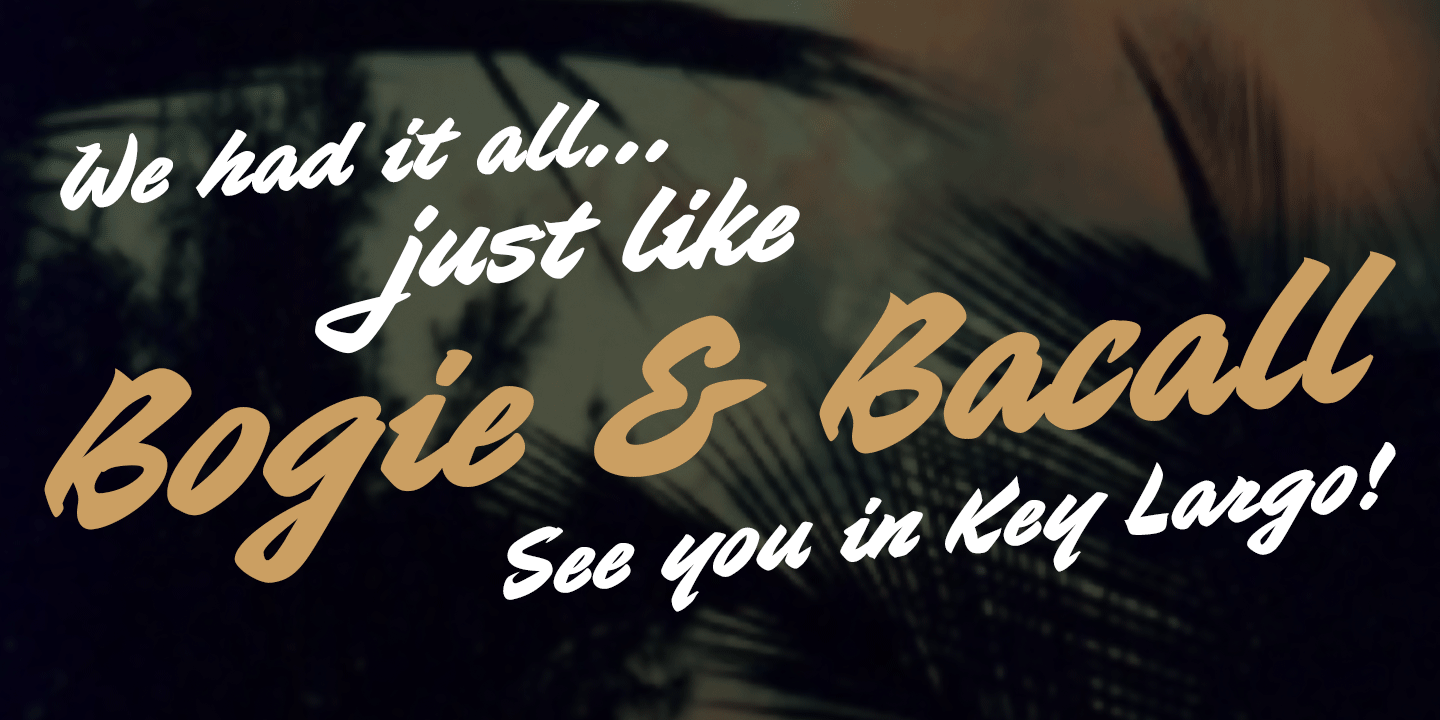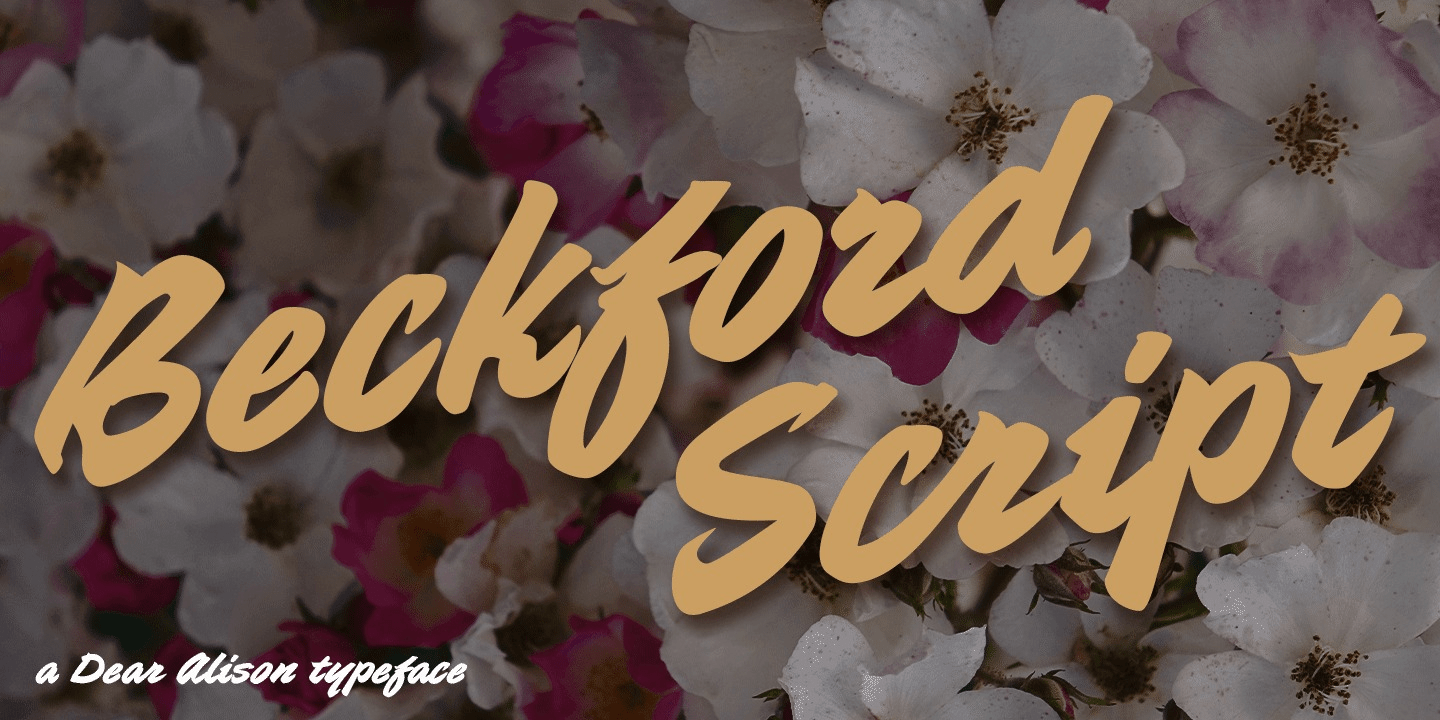
Beckford Script
About Beckford Script
Brush lettered scripts have such a quick expressive quality to them and have amazed me since I was a little girl. The quick whip of the wrist can make or break a letterform so easily. They are filled with personality and visual flavor. Beckford Script…